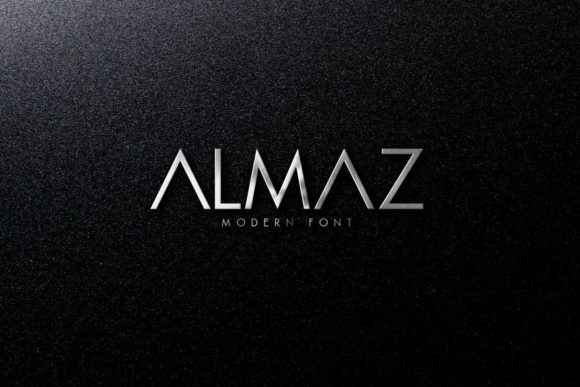
The Almaz Font: A Designer’s New Best Friend
I still remember the frustration of working on a project, hours spent perfecting every detail, only to realize that the font I chose wasn’t quite right. It was a client request – a clean, modern look that would appeal to a wide audience. I scoured the internet for the perfect sans serif font, and that’s when I stumbled upon Almaz. This beautiful, thin lettered font has been a game-changer for my designs, and I’m excited to share it with you.
An Honest Review of Almaz
• ✨ **Clean and modern aesthetic**: Almaz has a sleek, contemporary look that’s perfect for a wide range of projects.
• ✅ **Highly versatile**: This font can be used for everything from branding and advertising to packaging and digital media.
• 💡 **Easy to read**: Despite its thin lines, Almaz is surprisingly legible, even at smaller font sizes.
• 🎨 **Great for creative projects**: Whether you’re designing a logo, creating a mood board, or crafting a social media graphic, Almaz adds a touch of sophistication.
While Almaz is an excellent font, it’s not without its quirks. For example:
• 🤔 **Limited contrast**: If you’re looking for a font with a lot of contrast between thick and thin lines, Almaz might not be the best choice.
• ⚠️ **Not ideal for body text**: While Almaz is easy to read, its thin lines can make it less suitable for long blocks of text.
The Story Behind Almaz
While the origins of Almaz are shrouded in mystery, it’s clear that this font was designed with the modern designer in mind. Its clean lines and thin lettering make it perfect for a wide range of projects, from sleek branding to creative crafts. Whether you’re a professional designer or a creative hobbyist, Almaz is sure to become a favorite.
Q: What type of projects is Almaz best suited for?
Almaz is a versatile font that can be used for a wide range of projects, including branding, advertising, packaging, and digital media.
Q: Can I use Almaz for body text?
While Almaz is easy to read, its thin lines can make it less suitable for long blocks of text. Consider using a font with more contrast for body text.
Q: Does Almaz support OpenType features?
Yes, Almaz supports OpenType features like stylistic alternates, glyphs, and stylistic sets. Experiment with these features to add extra flair to your text.